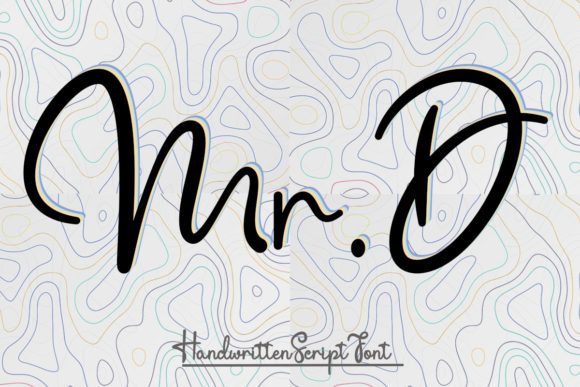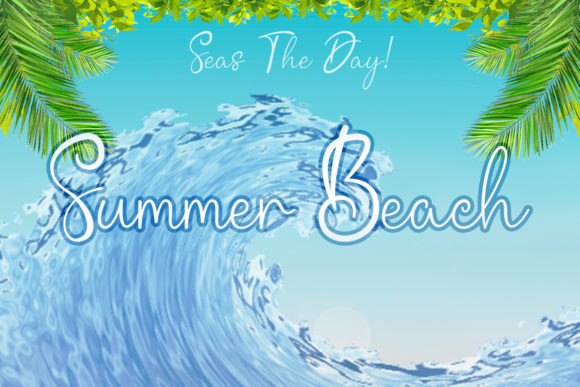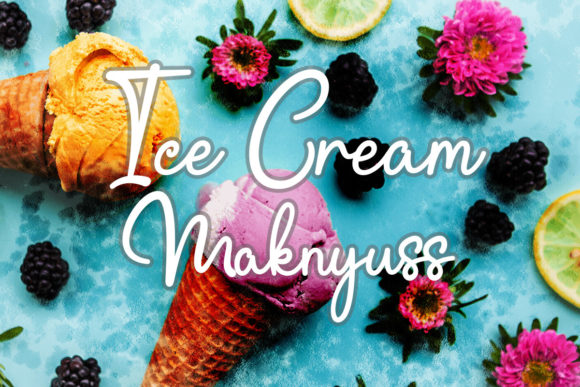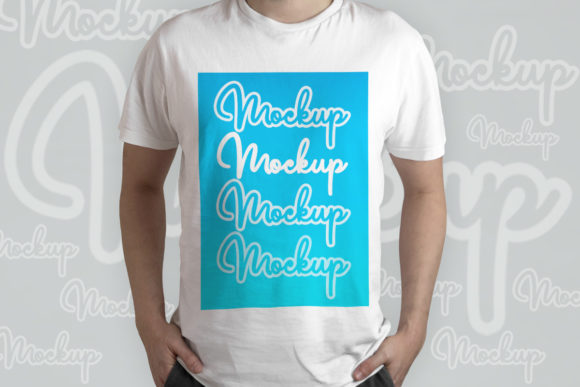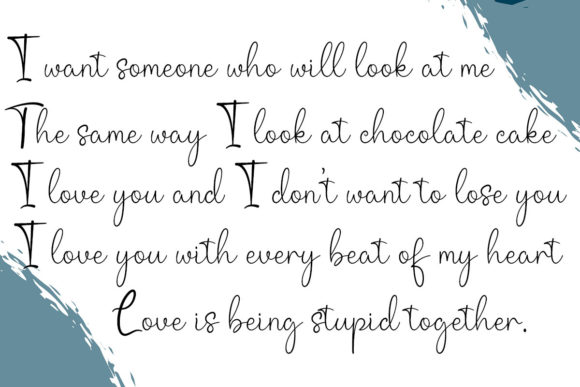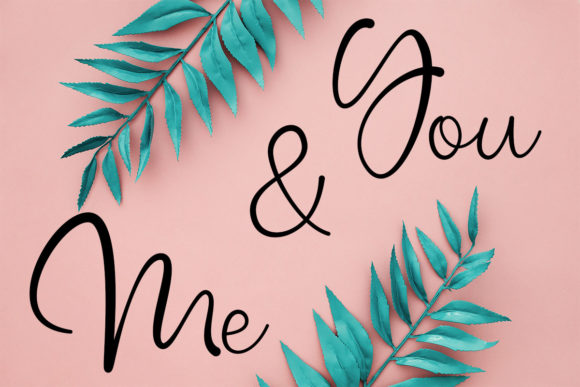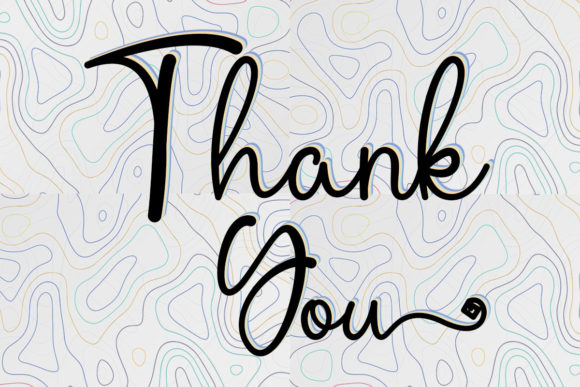
Mr. D Font
About Mr. D Font
“Mr. D” makes a distinctive entrance as a font that is not only unique but also exudes beauty and elegance. It becomes the ideal choice for an array of branding projects, including logos, t-shirt printing, creative products, and beyond. With its PUA encoding, you can effortlessly access all the glyphs and swashes, offering you a playground for your creative endeavors.
Envision “Mr. D” as a stroke of creative brilliance, each character carefully crafted to create a harmonious symphony of elegance. Its captivating allure and individualistic charm elevate your projects, transforming them into visual gems that capture attention. As you incorporate this font into your creations, you’ll embark on a journey where your concepts evolve into captivating visual narratives.
Beyond its visual appeal, “Mr. D” encapsulates an essence of authenticity and artistic expression. Its handwritten nature adds a personal touch, turning your designs into more than just visuals – they become a statement of creativity and refinement.
“Mr. D” becomes an invaluable asset in your design arsenal. Its versatility ensures seamless harmony with various styles, themes, and intentions. Whether you’re crafting an iconic logo, breathing life into t-shirts, or enhancing your creative products, this font amplifies the resonance of your message.
In a world where design speaks volumes, “Mr. D” becomes your medium for crafting designs that resonate deeply and leave a memorable mark. Let its unique strokes be the artistic embellishments that enhance your creations, infusing them with a touch of elegance and originality. Embrace the beautiful allure of “Mr. D” and watch as it transforms your projects into captivating showcases of artistic excellence, resonating with all who engage with them.